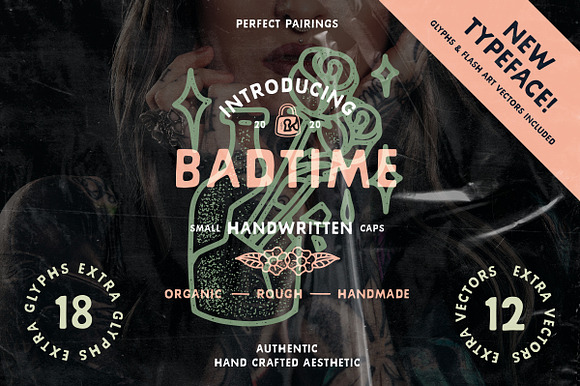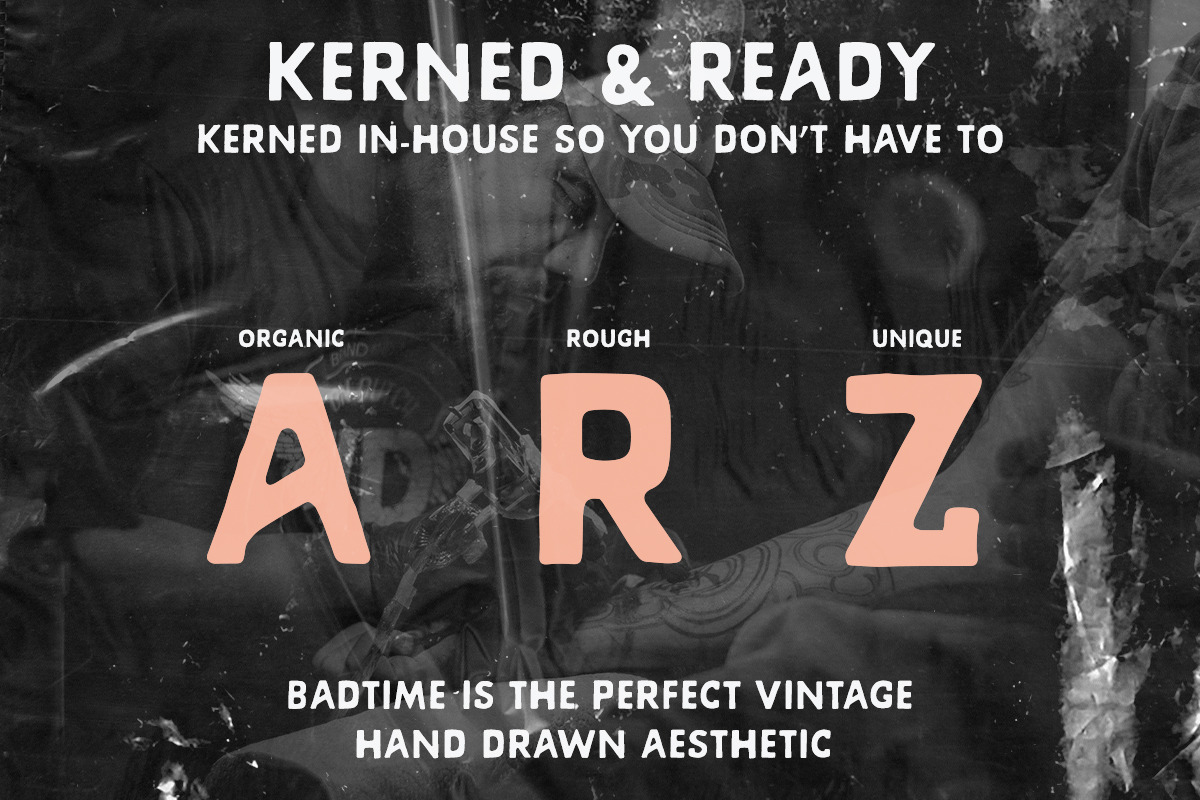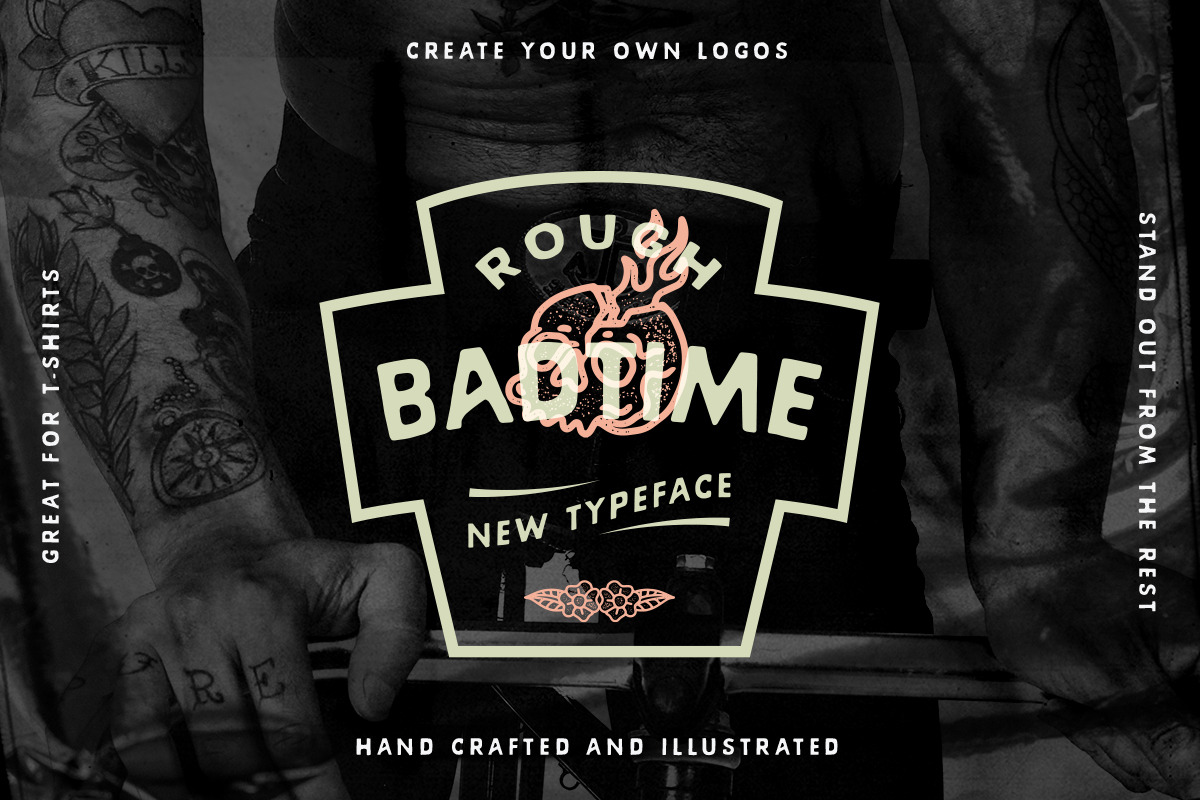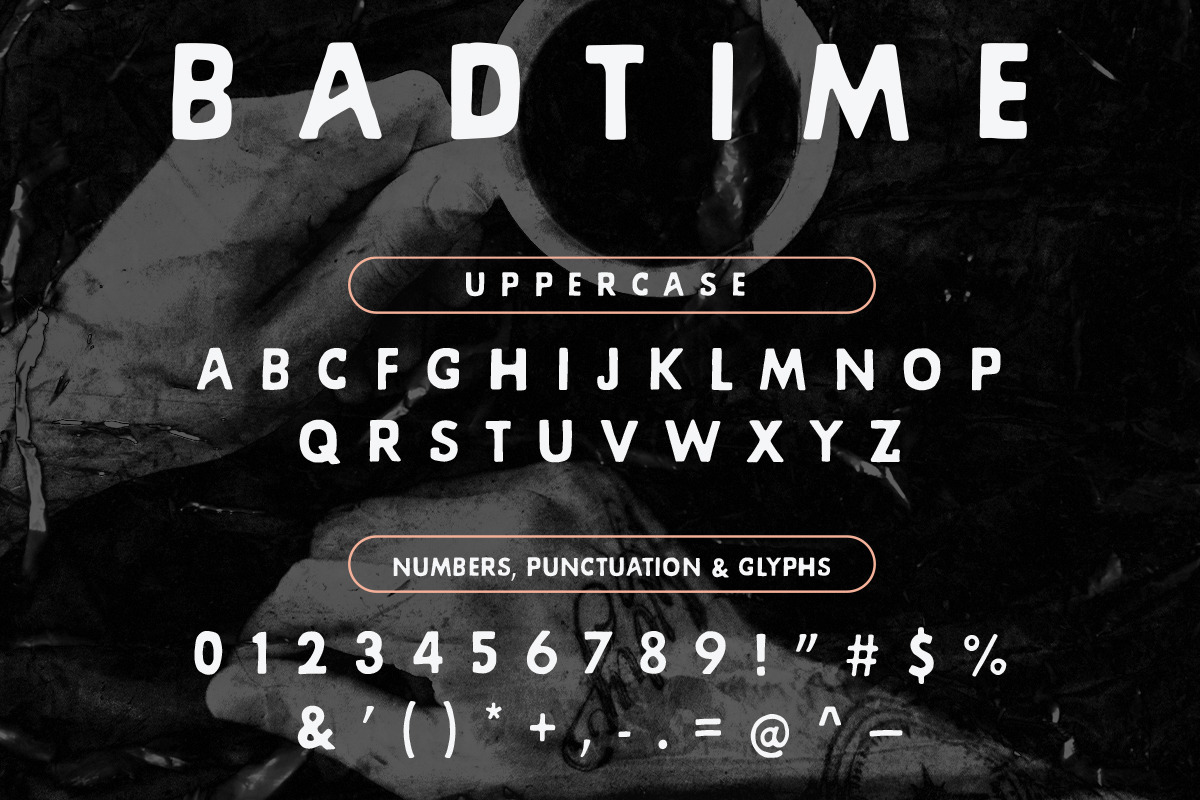
Badtime | Bold Handwritten Font
!!NEW FONT!! Badtime includes 12 unique hand illustrated vector illustrations. Textured, rough and organic! Perfect for your next project!
Introducing - Badtime a hand crafted, bold and handwritten typeface.
The Badtime typeface contains 18 additional glyphs with an authentic hand crafted aesthetic. This font is inspired by the organic and imperfect feel hand made illustrations exhibit. Furthermore, this product contains 12 unique hand illustrated vectors inspired by flash tattoo artwork. These illustrations are perfect for crafting new logos or supplemental to your project.
Badtime (OTF) Included is an additional 18 glyphs for your use. This typeface is all uppercase.